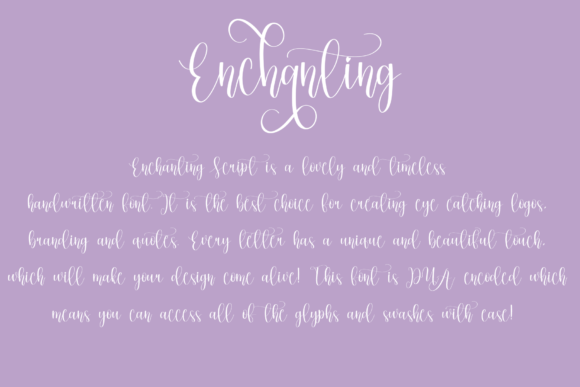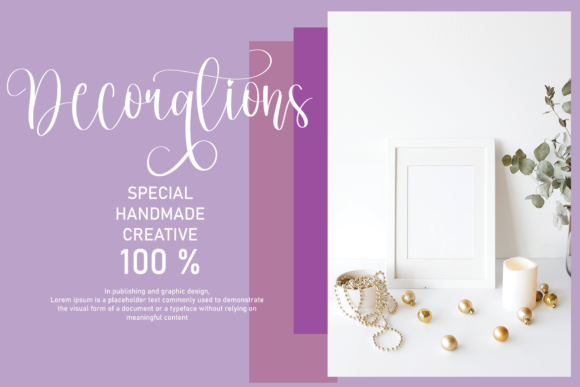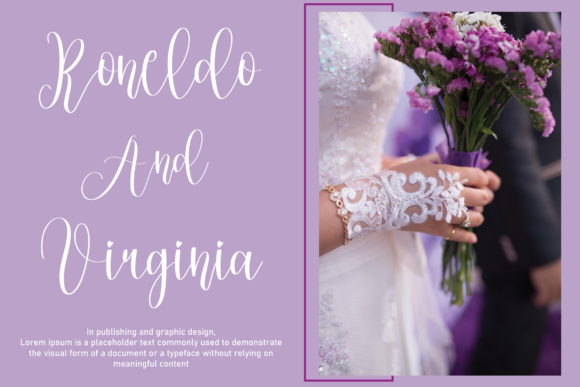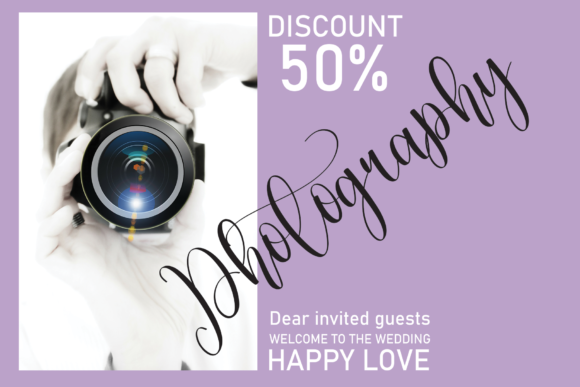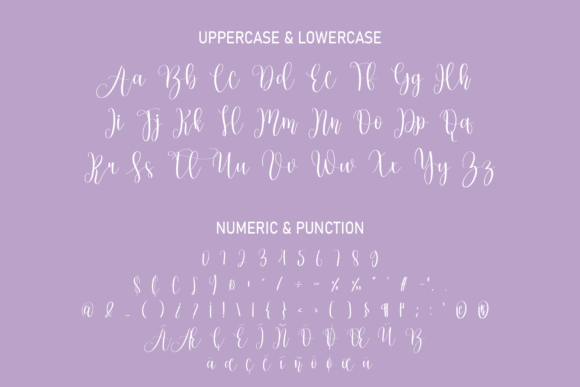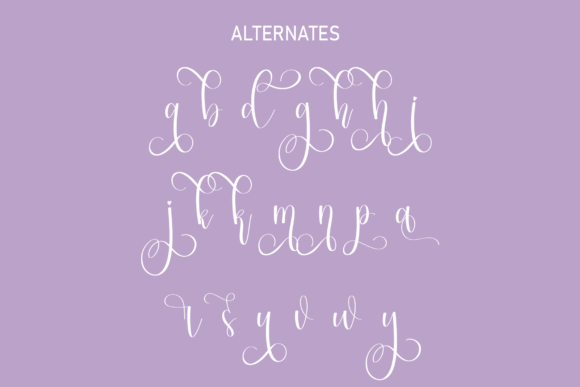
Discover the Magic of Enchanting Font: Elevate Your Designs with Unique Glyphs
In the world of typography, a new font has emerged to captivate designers and crafters alike with its modern charm and distinctive character. Enchanting Font is a stylish typeface that boasts unique glyphs, making it the perfect addition to a wide range of design projects. Whether you’re creating wall displays, wedding invitations, social media post logos, advertisements, product packaging, or any other visual masterpiece, Enchanting Font is sure to add a touch of magic to your work.
The Versatility of Enchanting Font
Enchanting Font is designed to be versatile, making it an excellent choice for various applications. Its modern and elegant appearance makes it suitable for:
- Wall displays and signage
- Wedding invitations and event stationery
- Social media post logos and graphics
- Advertisements and marketing materials
- Product packaging and design
- Labels and branding
- Photography and watermarking
- Stationery and letterheads
What Makes Enchanting Font Special?
Enchanting Font stands out from other typefaces due to its unique glyphs and modern design. The font’s distinctive characters add a touch of whimsy and sophistication to any design, making it perfect for crafters and designers who want to create something truly special.
Benefits of Using Enchanting Font
By incorporating Enchanting Font into your designs, you can:
- Add a touch of elegance and sophistication
- Create visually appealing and engaging designs
- Stand out from the crowd with unique and distinctive typography
- Enhance your brand’s visual identity
- Make your designs more memorable and impactful
Tips for Using Enchanting Font
To get the most out of Enchanting Font, consider the following tips:
- Use it as a headline font to grab attention
- Pair it with complementary fonts for added visual interest
- Experiment with different colors and textures to enhance the font’s unique glyphs
- Use it consistently across your designs to create a cohesive brand identity
Enchanting Font is a modern typeface that is sure to captivate designers and crafters with its unique glyphs and versatile design. Whether you’re creating wall displays, wedding invitations, or social media post logos, Enchanting Font is the perfect choice for adding a touch of magic to your work. With its elegant appearance, distinctive characters, and wide range of applications, Enchanting Font is an excellent addition to any design project.